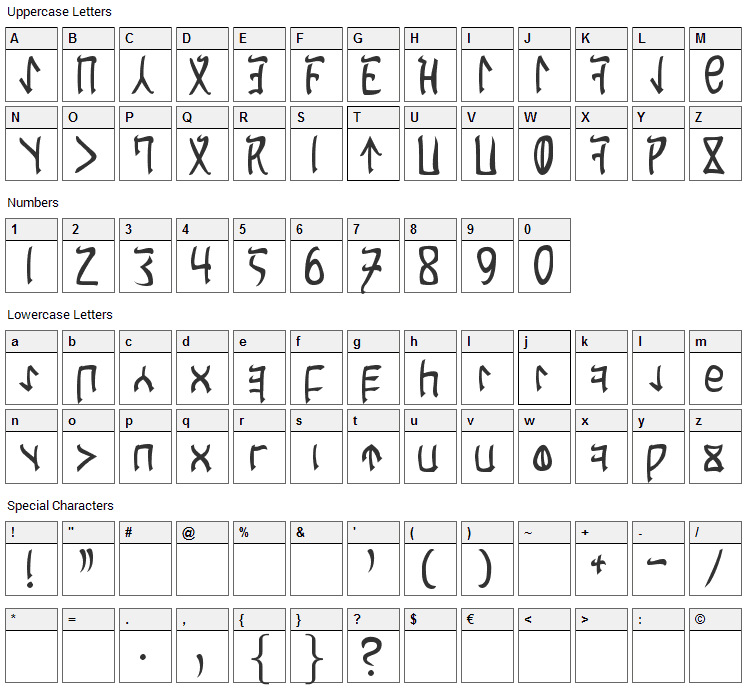
Cardosan Font
Cardosan is a lightly-swirled runic-script font, custom-made for a Neo-Exodus campaign (from LPJ Publishing) and is based on a combination of ancient Turkish and Gothic runes. Includes regular, bold, italic, and bold-italic weights.